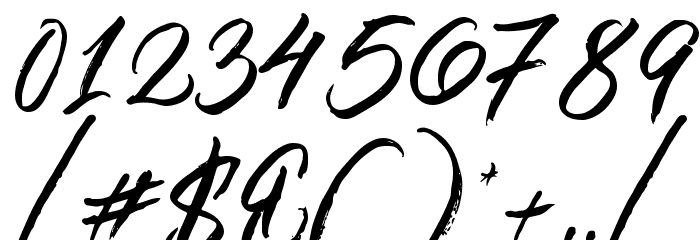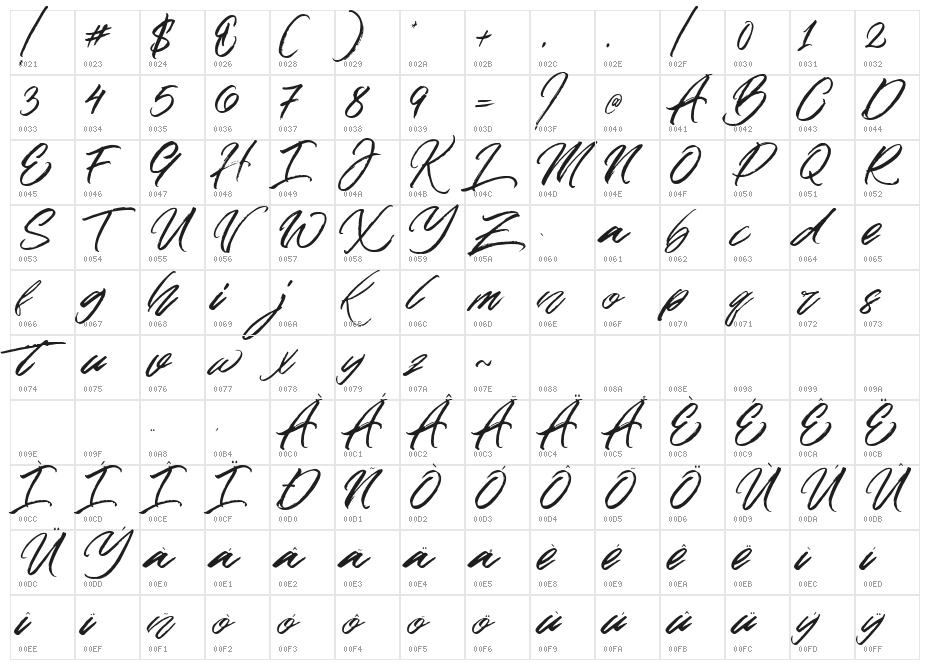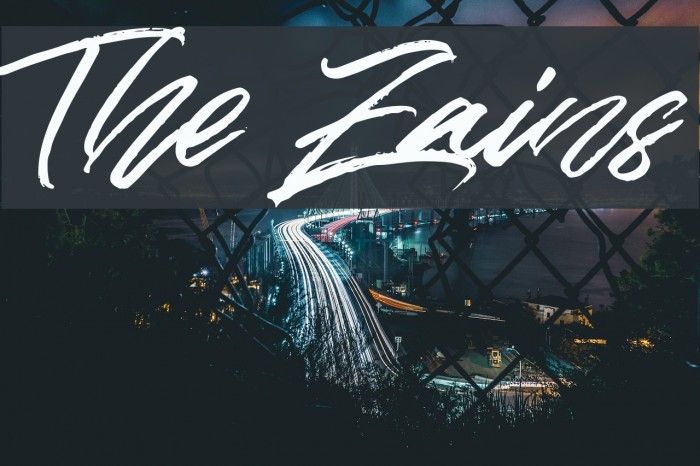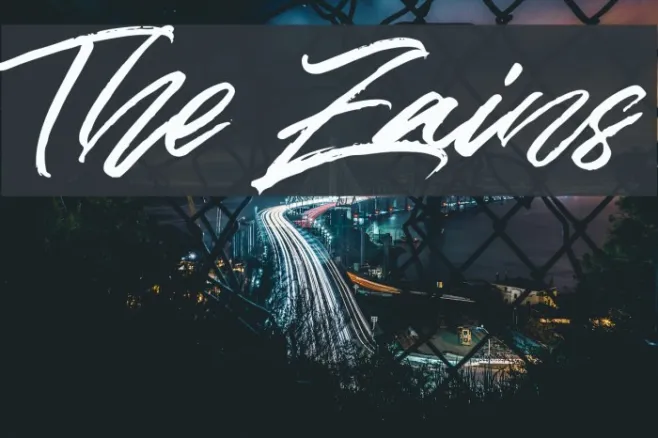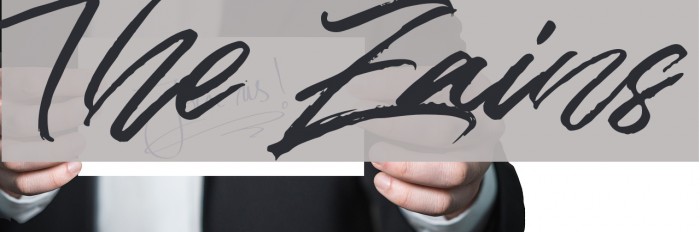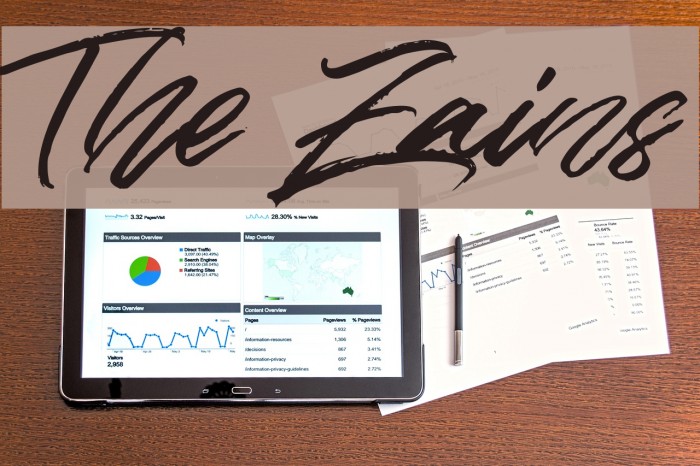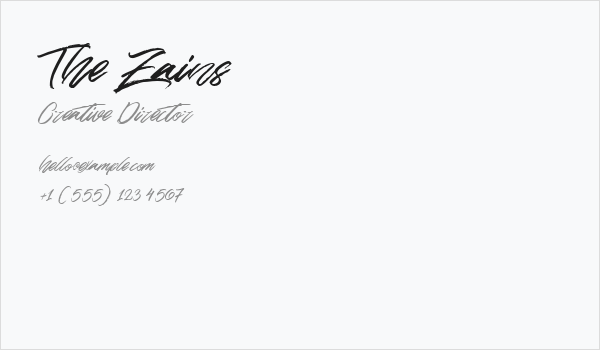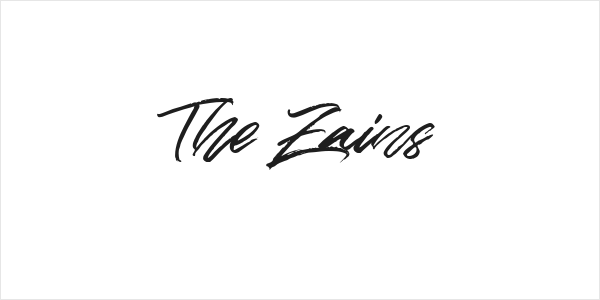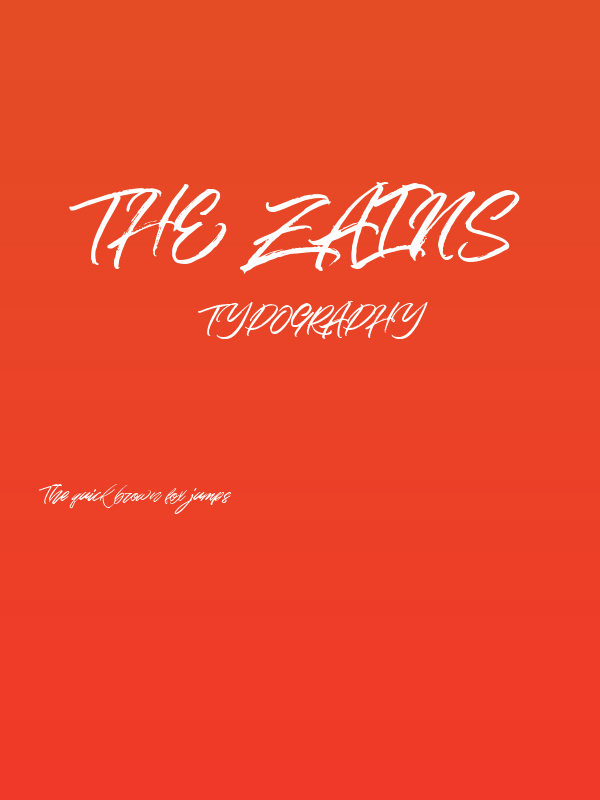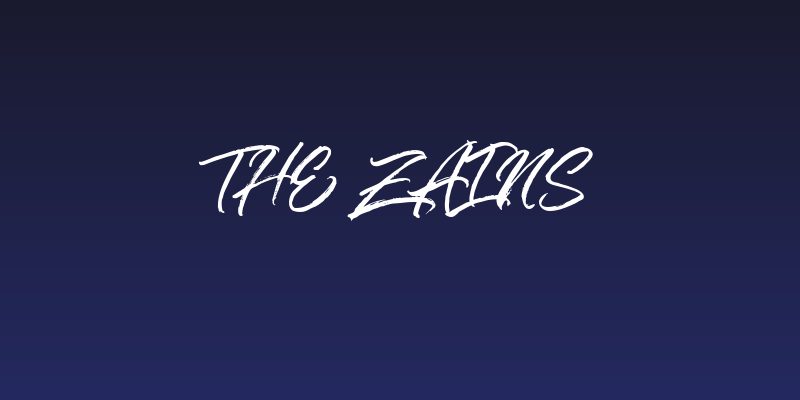
The Zains Font
The Zains Description
This font features a dynamic and expressive script style, characterized by its fluid and cursive letterforms. The strokes are bold and sweeping, giving a sense of motion and elegance. Each character is distinct, with a high level of detail and variation, making it suitable for artistic and decorative purposes. The uppercase letters are particularly dramatic, with extended flourishes and loops, while the lowercase letters maintain a consistent flow. The numerals and special characters are equally stylized, ensuring a cohesive look across all elements. This font exudes a sense of creativity and flair, ideal for projects that require a personal and handcrafted touch.
Use CaseLogos, Invitations, Artistic projects
Proposed ProjectsIdeal for wedding invitations, branding, logos, and artistic projects that require a personal touch.